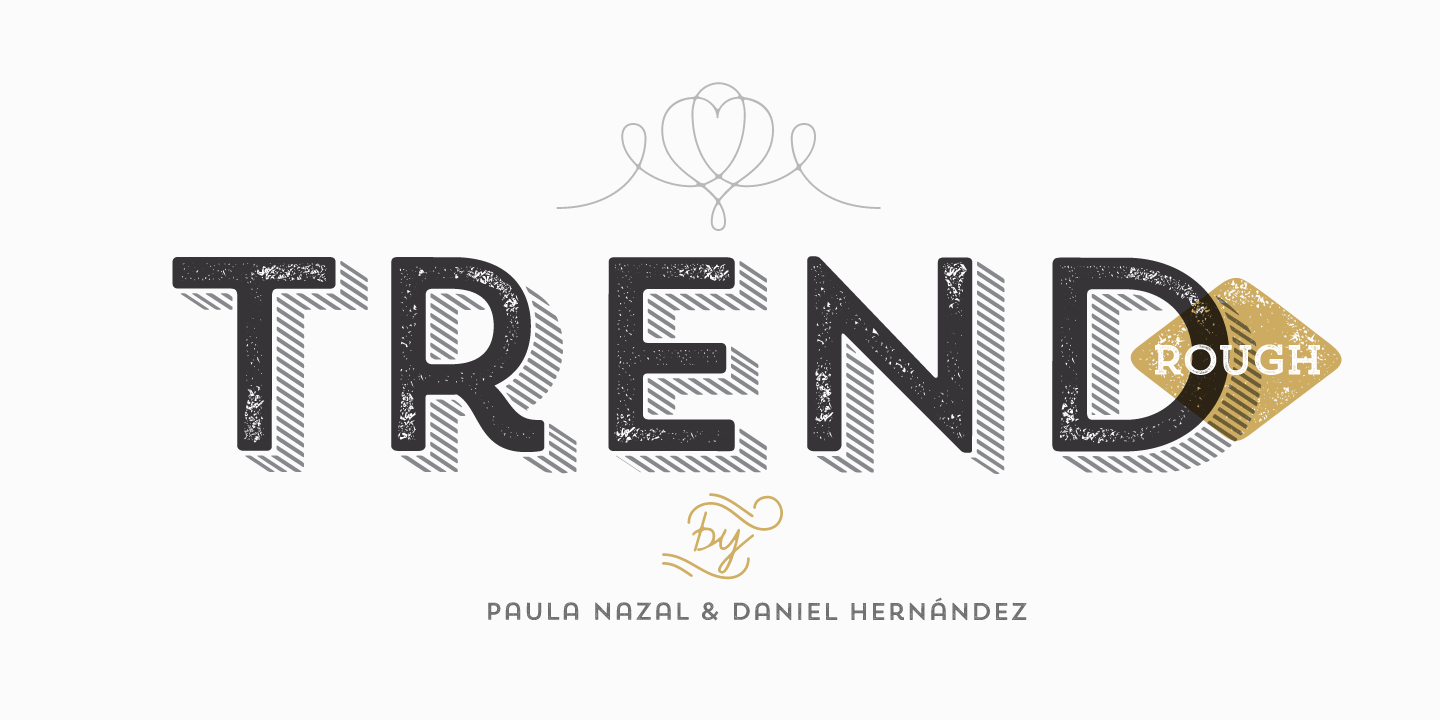
Trend Rough Font is a bold and textured display typeface perfect for grunge-inspired branding, music posters, urban apparel, and edgy social media graphics. Its rough, distressed style adds raw energy and a rebellious vibe to any design.
What makes Trend Rough Font Free Download so exciting is its ability to capture the spirit of street culture and alternative aesthetics, giving your projects an authentic, gritty look that stands out.
The Trend Rough Font family typically includes Regular and Bold weights, often with textured or grunge variations to enhance its rugged character.
Whether you're designing for underground music events, streetwear brands, or alternative lifestyle campaigns, Trend Rough Font Free Download delivers a powerful and unmistakable visual impact.